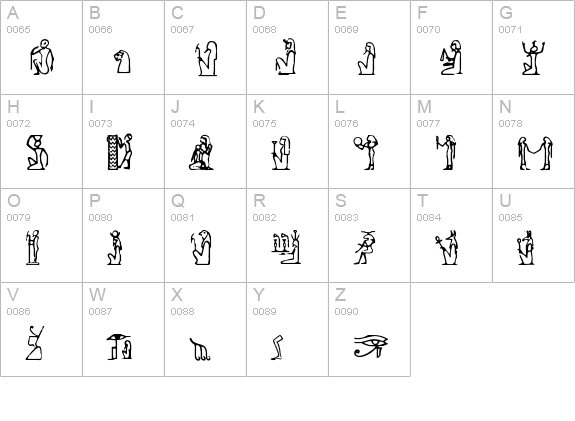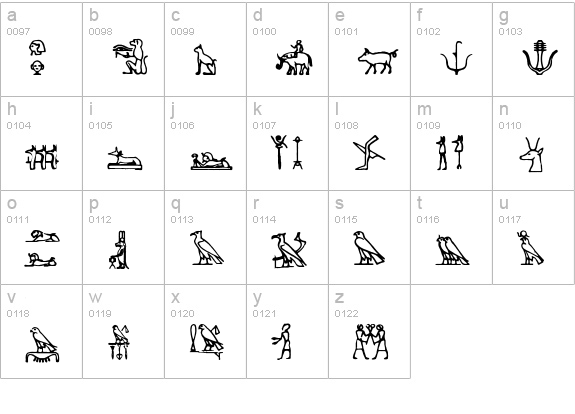
Hieroglify Font Details
Hieroglify font is a stunning display typeface that captures the essence of ancient Egyptian hieroglyphics with a modern twist. Its intricate and detailed design is perfect for adding a touch of historical charm to your projects. The glyphs are beautifully crafted, creating a unique visual appeal that will surely make your designs stand out. This font is not only visually striking but also versatile, making it suitable for a wide range of design projects, from posters and book covers to branding and packaging. Whether you're looking to add a touch of mystique or a sense of history to your work, Hieroglify font is sure to deliver. Best of all, Hieroglify font is completely free to download at FontsMarket.com. So go ahead and add this captivating typeface to your collection today and let your creativity soar with its ancient-inspired beauty.